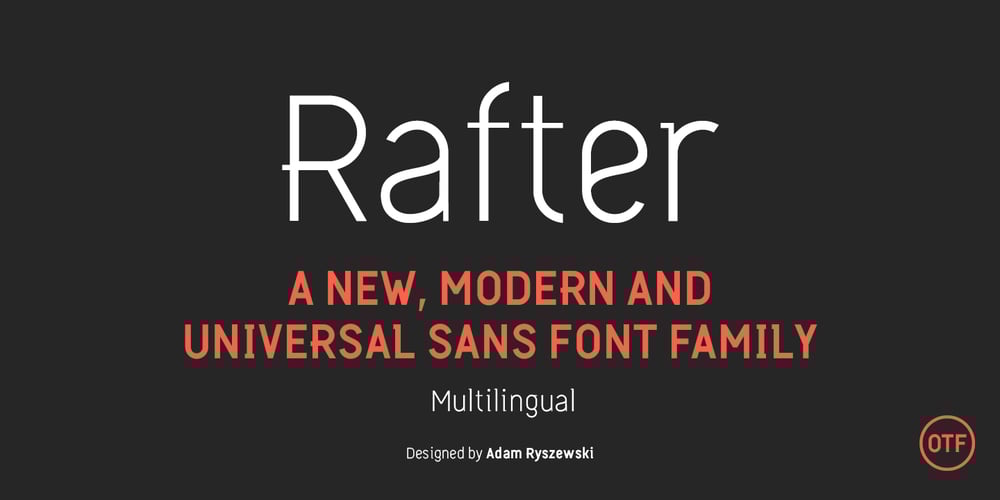
Rafter Font Family was designed by Adam Ryszewski and published by Vertigo. Rafter contains 3 styles and family package options. Rafter is a new, sans font family, with modern, narrow line, graphically attractive with both upper and lower case letters. Spaced and mastered for optimal readability, Rafter plays well in a wide range of projects and applications. The typeface provides multilingual support.